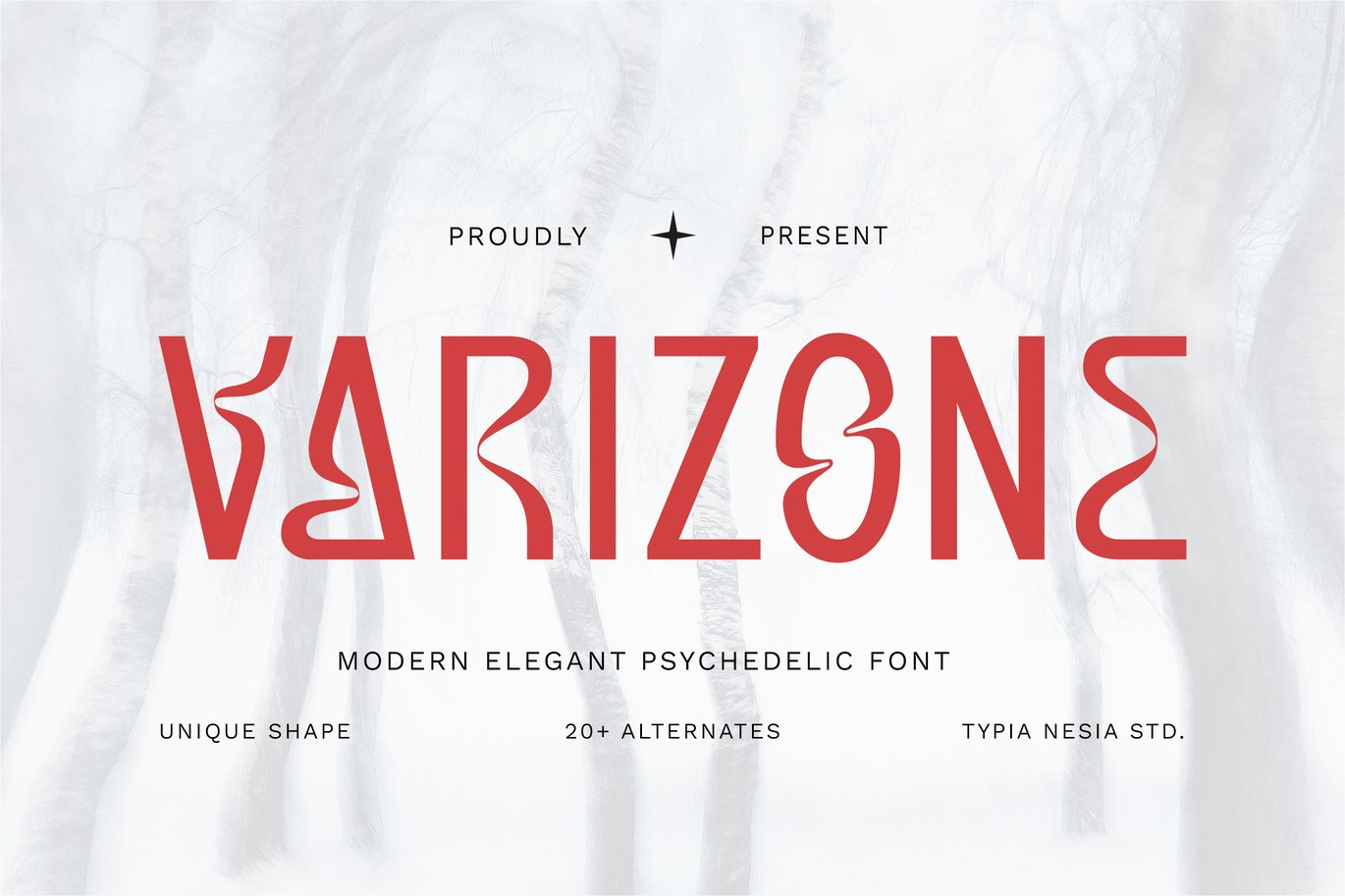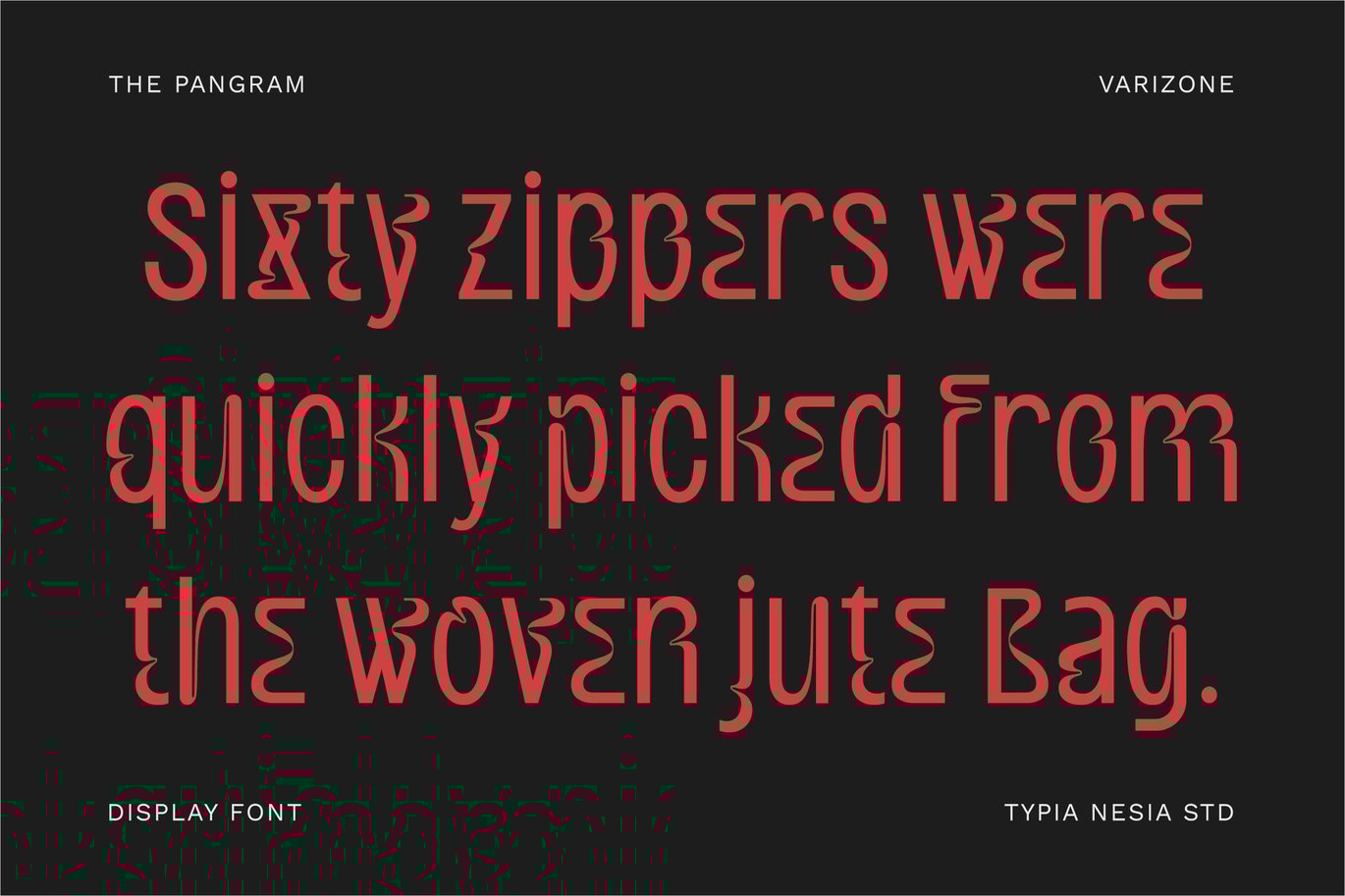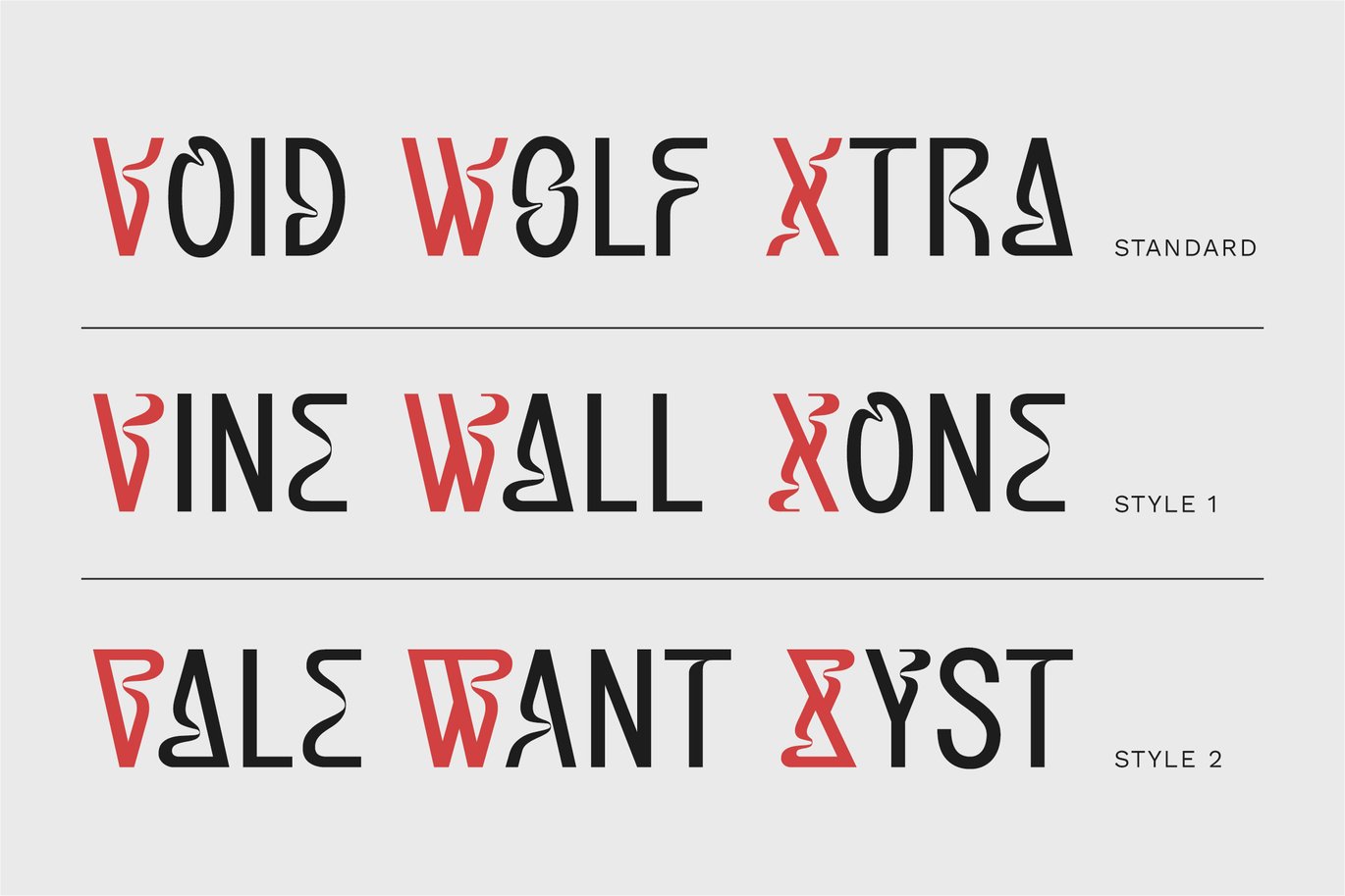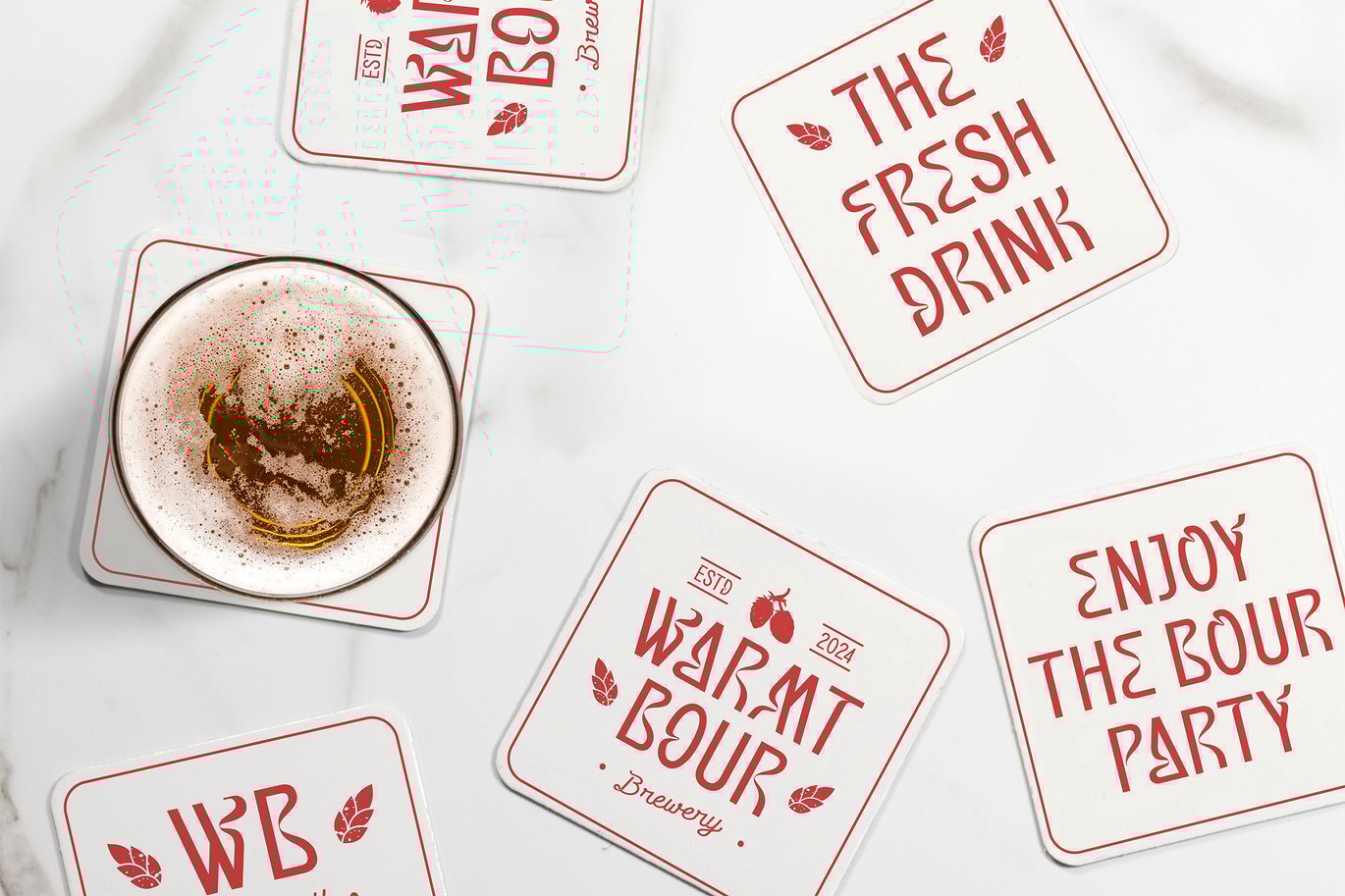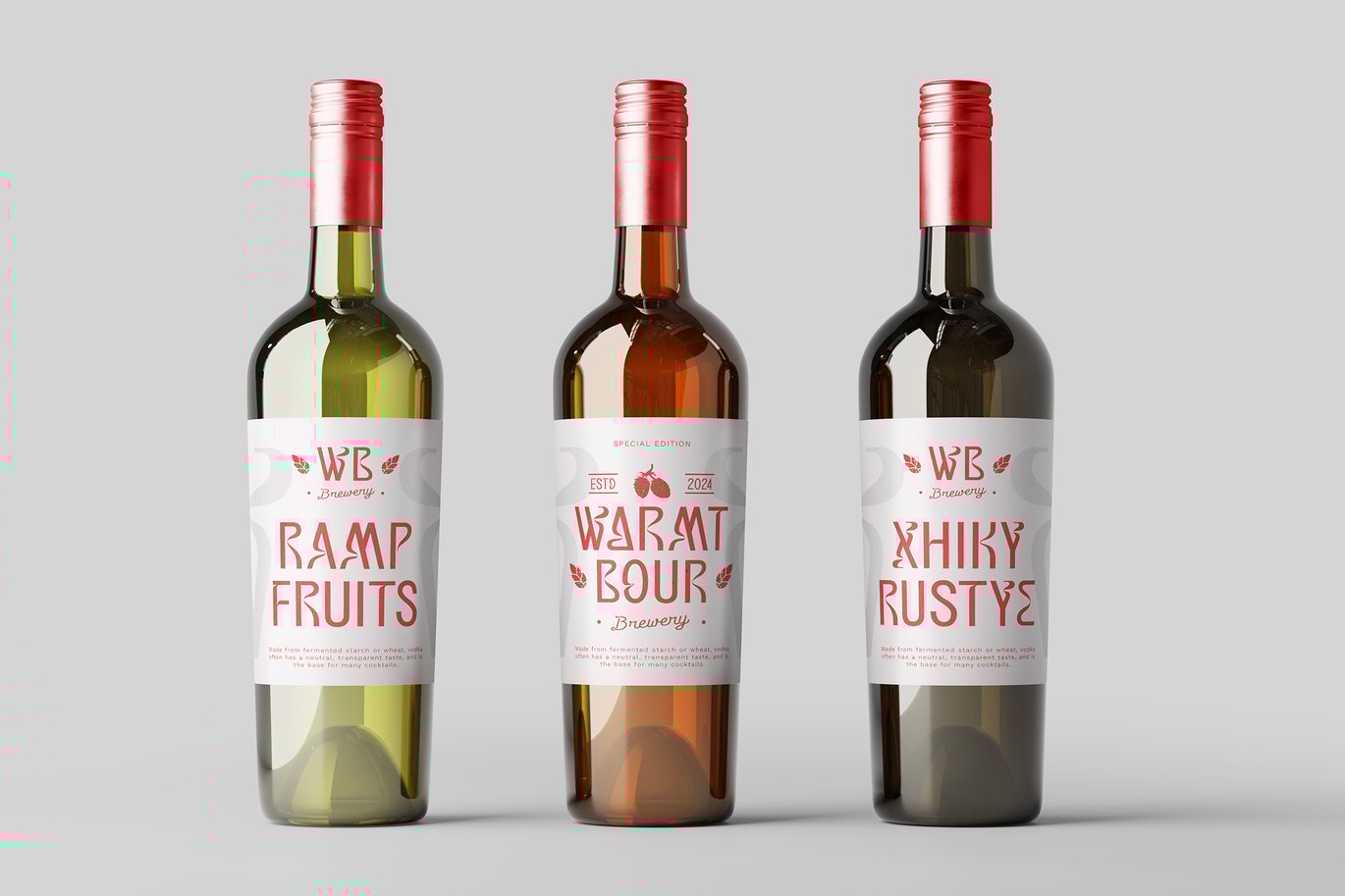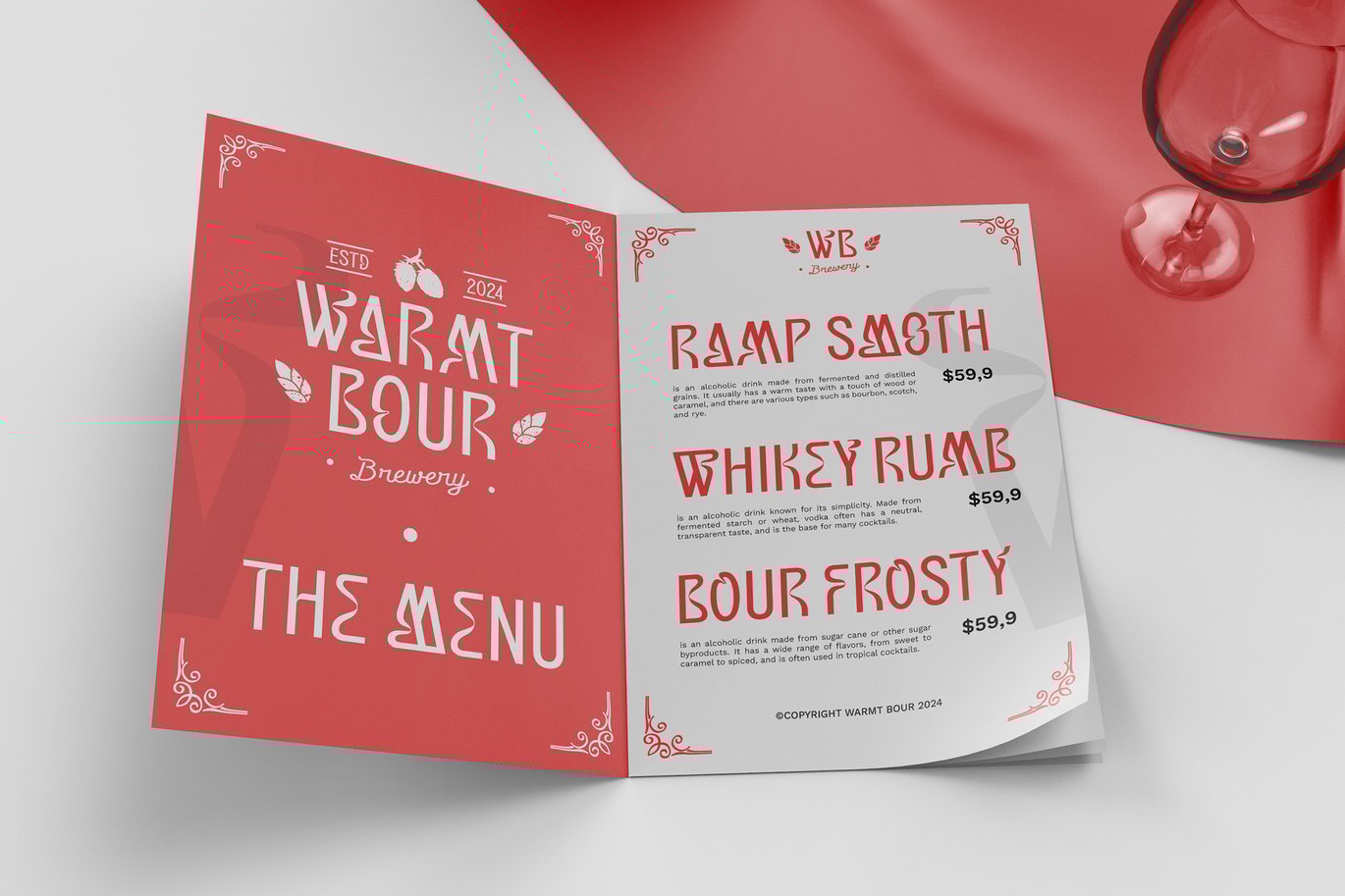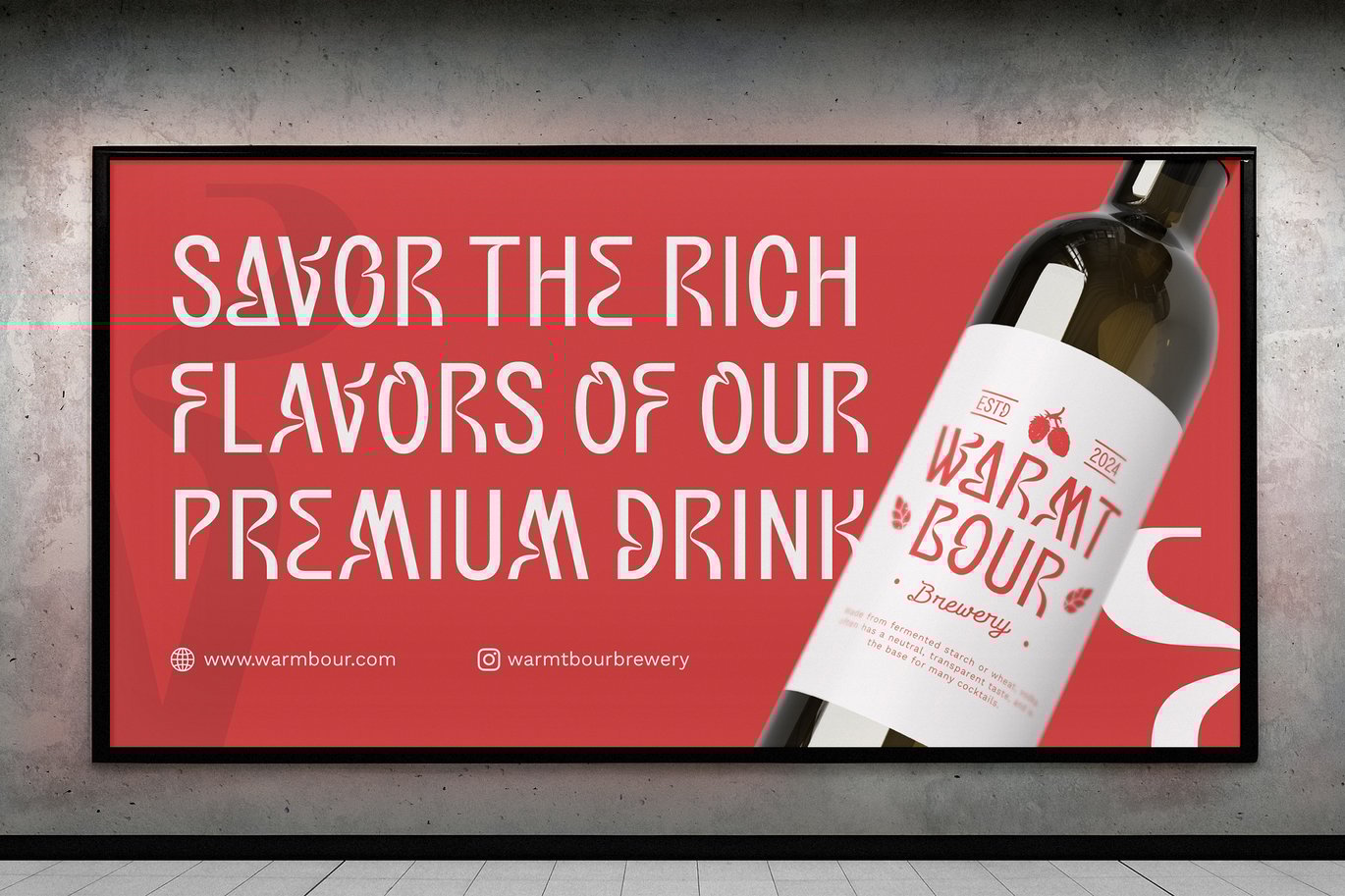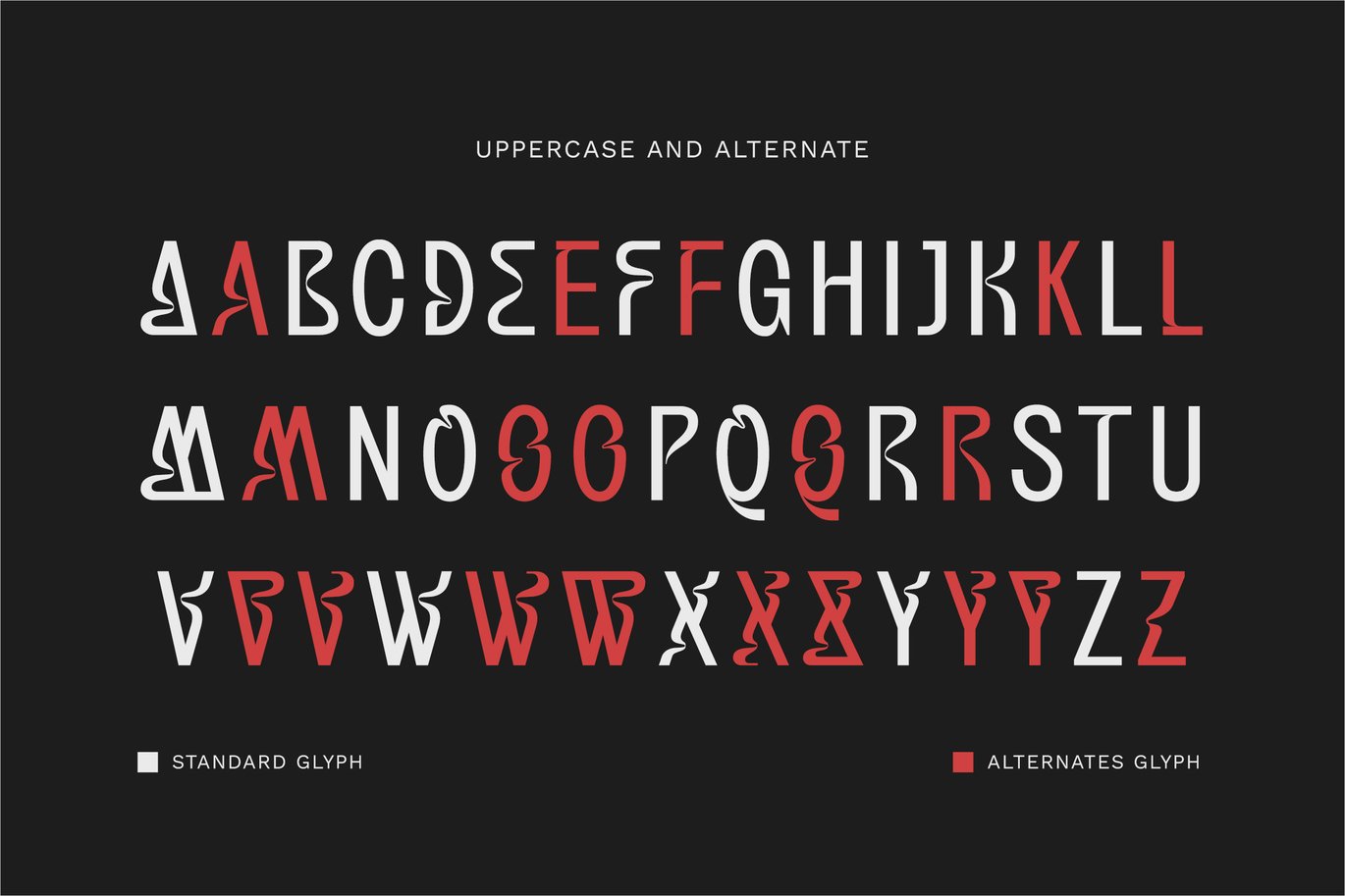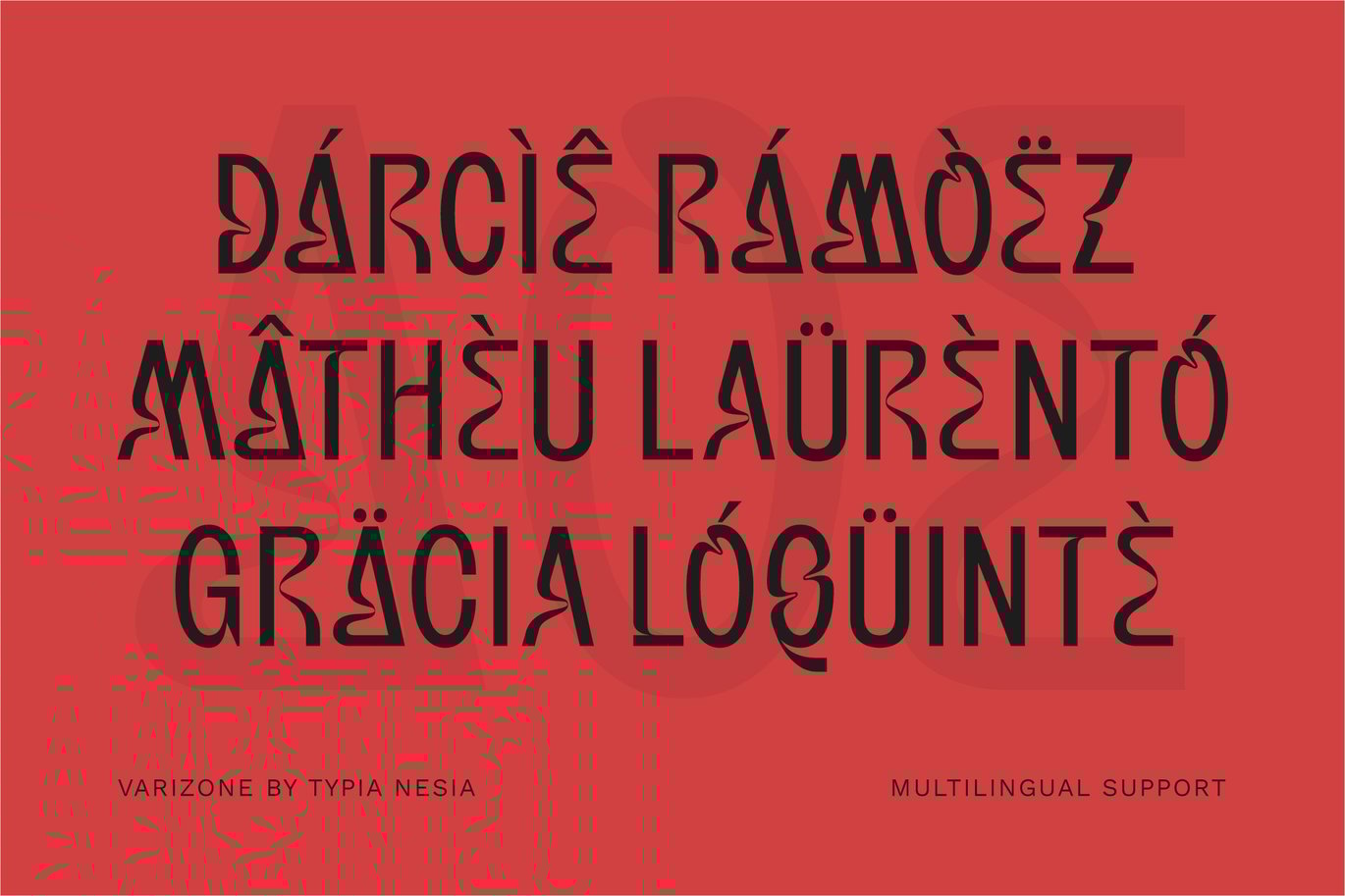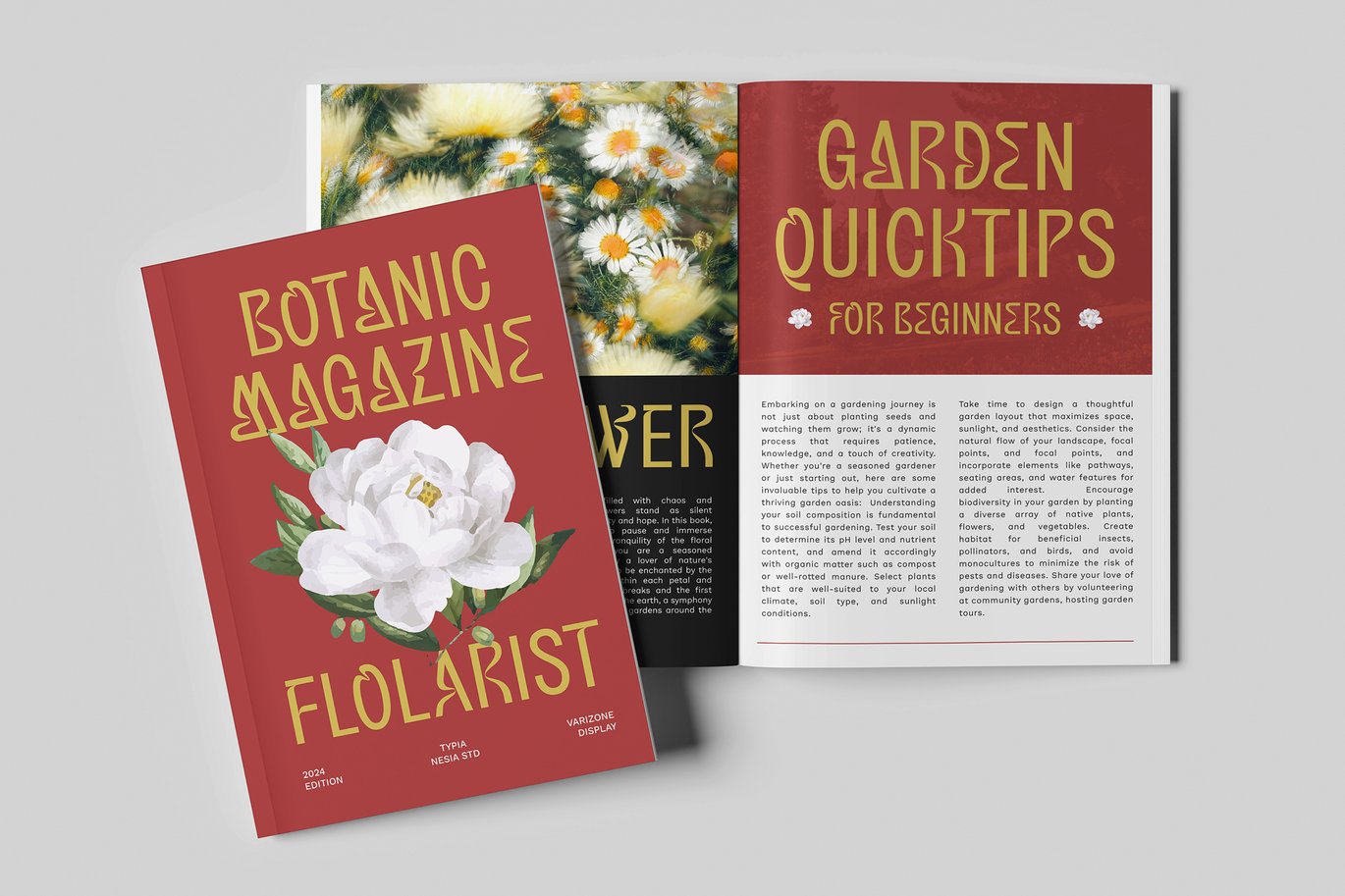
Varizone – Modern Elegant Psychedelic Font
Varizone – Modern Elegance Psychedelic Font – Expressive Unique Display Font.
Varizone embodies the essence of modernity and elegance, infused with psychedelic influences. Its sleek and unique design makes it stand out in contemporary typography. Ideal for a variety of creative projects, Varizone adds a touch of uniqueness to branding, advertising, packaging, posters, website design, book covers, editorial design and more. This font comes with ligatures, alternates, and multilingual support, enhancing its versatility and creative potential. Its seamless integration of uppercase, lowercase, punctuation, and numerals ensures a comprehensive typographic solution for diverse design needs. Crafted with meticulous attention to detail, Varizone showcases the expertise of designers in capturing the essence of modernity and elegance while infusing a touch of psychedelic charm.